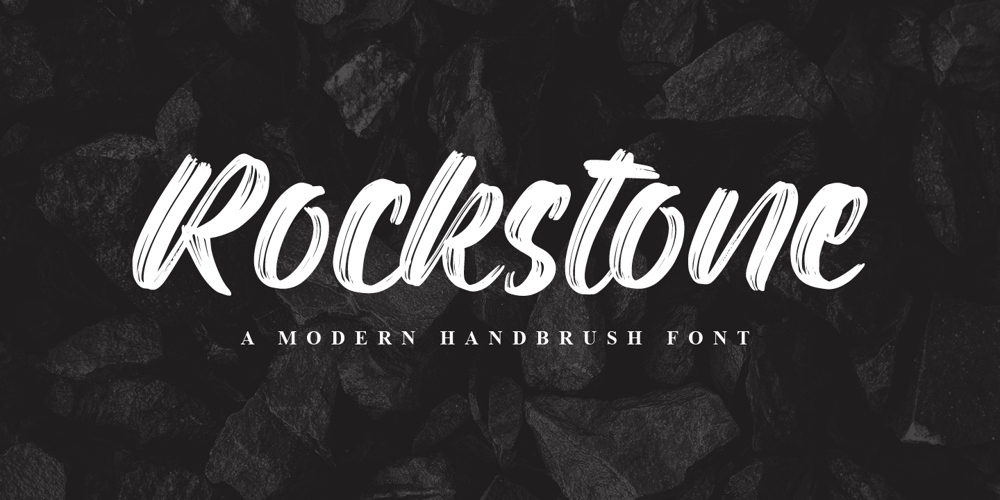
Rockstone Font Family was designed by Hayinah and published by Rockboys Studio. Rockstone contains 2 styles and family package options. Rockstone is a new modern brush font, incredibly adaptable to all sorts of designs. It is suitable for any branding, product packaging, invitation, quote, t-shirt, label, poster, logo that you wish to create.